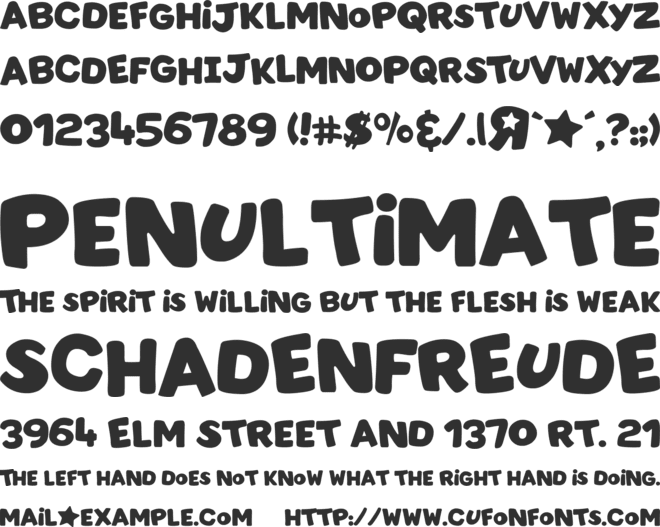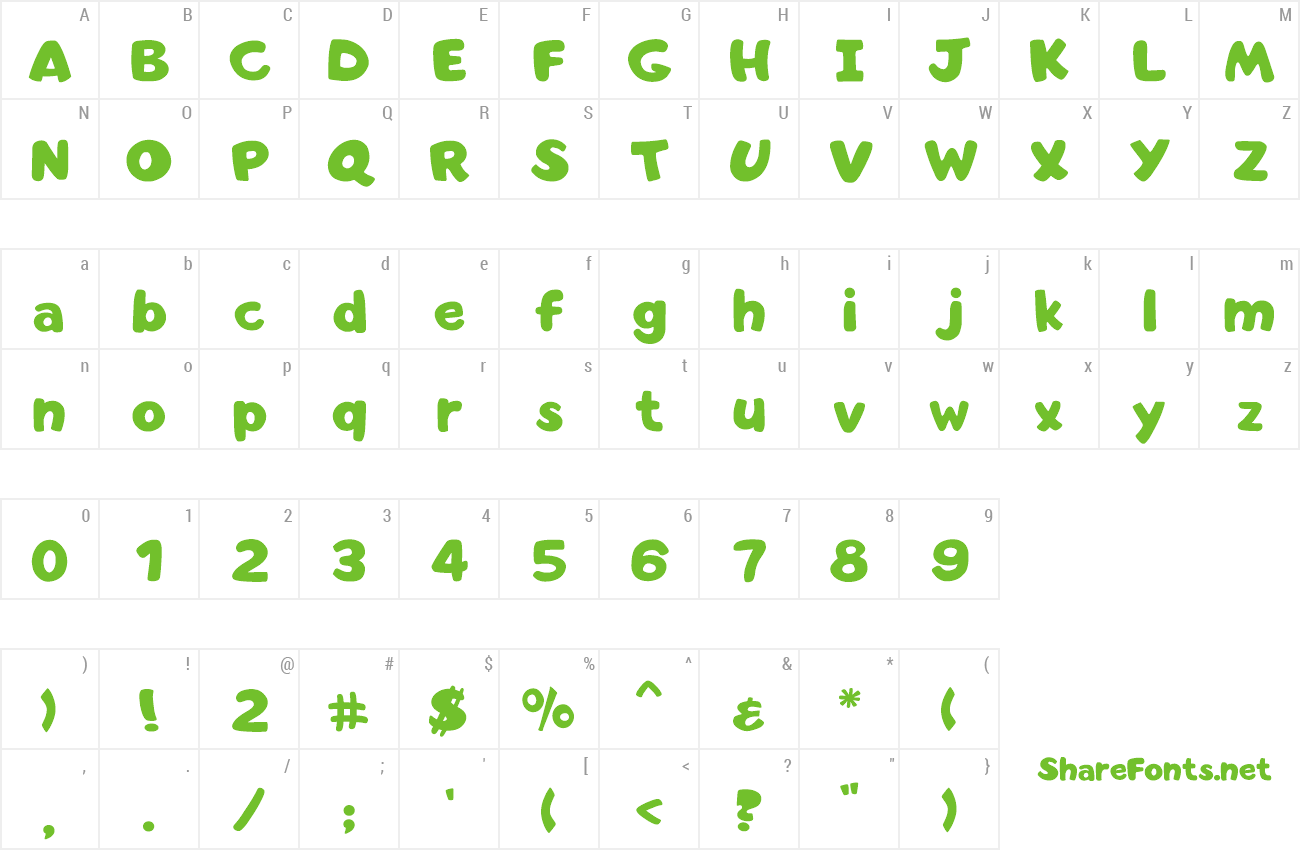
Toys R Us Font
Toys R Us Font - Every font is free to download! Toys r us font consists of over 120. It was created by the parent. Toys r us cartoon font. Web toys r us font. Click to find the best 2 free fonts in the toys r us style. Web a font heavily inspired by the toys r us logo, with support of countless languages and opentype features. Web the font used to design the toys r us logo has been published by dledeviant since 2007. Looking for toys r us fonts?
Looking for toys r us fonts? Click to find the best 2 free fonts in the toys r us style. It was created by the parent. Web a font heavily inspired by the toys r us logo, with support of countless languages and opentype features. Web the font used to design the toys r us logo has been published by dledeviant since 2007. Every font is free to download! Toys r us cartoon font. Toys r us font consists of over 120. Web toys r us font.
Web toys r us font. Toys r us cartoon font. It was created by the parent. Looking for toys r us fonts? Every font is free to download! Web the font used to design the toys r us logo has been published by dledeviant since 2007. Web a font heavily inspired by the toys r us logo, with support of countless languages and opentype features. Toys r us font consists of over 120. Click to find the best 2 free fonts in the toys r us style.
Every font is free to download! Looking for toys r us fonts? Click to find the best 2 free fonts in the toys r us style. Toys r us font consists of over 120. It was created by the parent.
Web the font used to design the toys r us logo has been published by dledeviant since 2007. Looking for toys r us fonts? Web toys r us font. Toys r us cartoon font. Web a font heavily inspired by the toys r us logo, with support of countless languages and opentype features.
It was created by the parent. Web a font heavily inspired by the toys r us logo, with support of countless languages and opentype features. Every font is free to download! Looking for toys r us fonts? Toys r us cartoon font.
Every font is free to download! It was created by the parent. Web toys r us font. Web a font heavily inspired by the toys r us logo, with support of countless languages and opentype features. Toys r us font consists of over 120.
Every font is free to download! Toys r us font consists of over 120. Web a font heavily inspired by the toys r us logo, with support of countless languages and opentype features. Looking for toys r us fonts? Web toys r us font.
Every font is free to download! Toys r us font consists of over 120. Toys r us cartoon font. Web a font heavily inspired by the toys r us logo, with support of countless languages and opentype features. Web the font used to design the toys r us logo has been published by dledeviant since 2007.
Web toys r us font. Web a font heavily inspired by the toys r us logo, with support of countless languages and opentype features. Toys r us font consists of over 120. Every font is free to download! Web the font used to design the toys r us logo has been published by dledeviant since 2007.
Web toys r us font. Web a font heavily inspired by the toys r us logo, with support of countless languages and opentype features. Web the font used to design the toys r us logo has been published by dledeviant since 2007. Every font is free to download! It was created by the parent.
Toys R UsFont Solid free Font What Font Is
Web a font heavily inspired by the toys r us logo, with support of countless languages and opentype features. Click to find the best 2 free fonts in the toys r us style. Toys r us font consists of over 120. It was created by the parent. Looking for toys r us fonts?
Download High Quality toys r us logo font Transparent PNG Images Art
Web a font heavily inspired by the toys r us logo, with support of countless languages and opentype features. Web the font used to design the toys r us logo has been published by dledeviant since 2007. Click to find the best 2 free fonts in the toys r us style. Toys r us font consists of over 120. Web.
Looking For Toys R Us Fonts?
Toys r us font consists of over 120. Toys r us cartoon font. Web the font used to design the toys r us logo has been published by dledeviant since 2007. Web toys r us font.
It Was Created By The Parent.
Web a font heavily inspired by the toys r us logo, with support of countless languages and opentype features. Every font is free to download! Click to find the best 2 free fonts in the toys r us style.